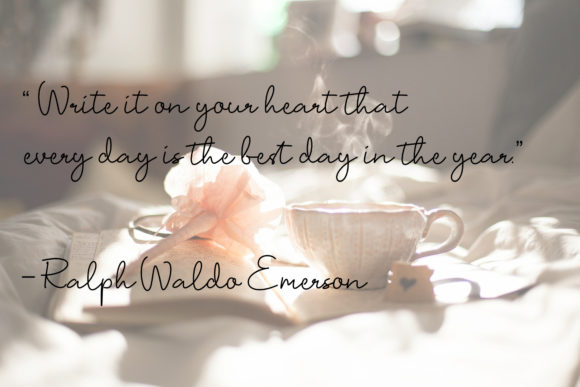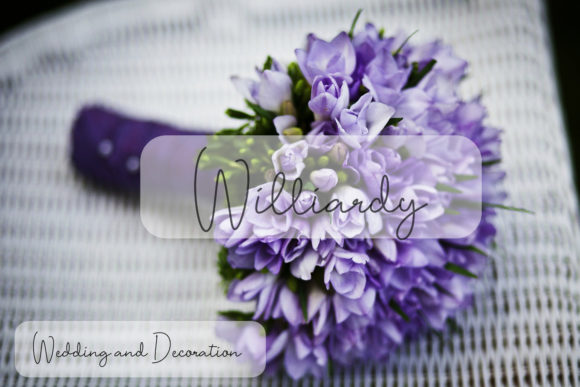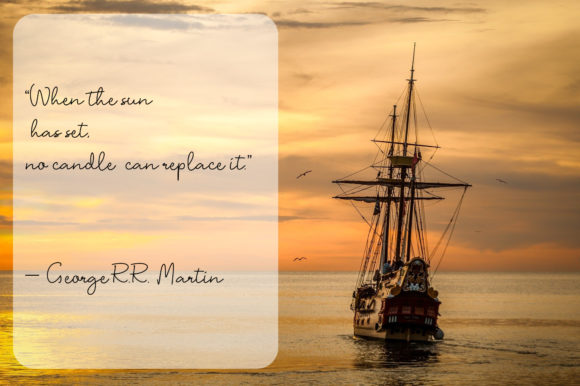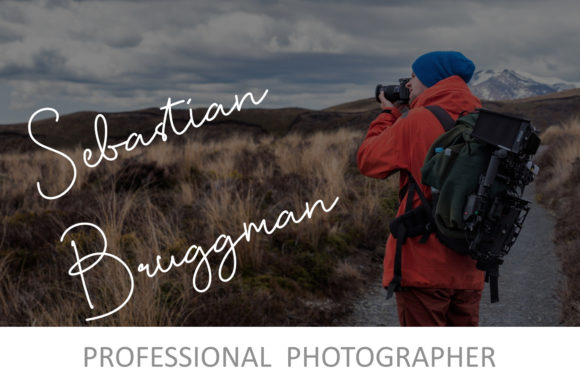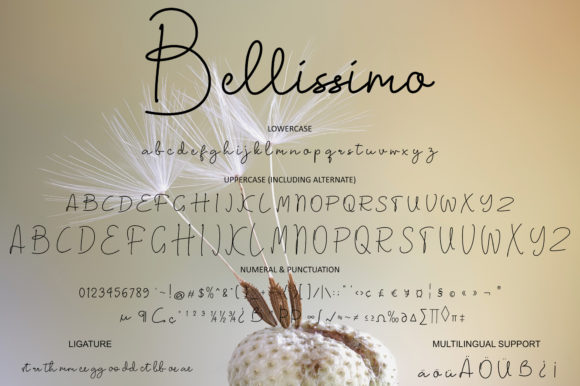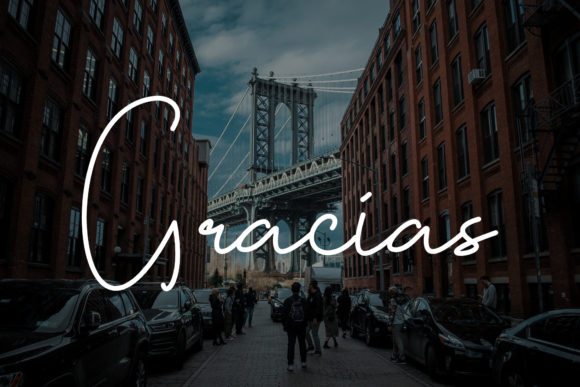
Bellissimo Font: Elevate Your Designs with Elegant Script
In the world of typography, few fonts capture the essence of elegance and sophistication as beautifully as Bellissimo. This stunning script font is inspired by timeless classic calligraphy, yet boasts a contemporary atmosphere that makes it perfect for modern designs. Whether you’re a designer, crafter, or simply someone who appreciates beautiful typography, Bellissimo is sure to impress.
The Story Behind Bellissimo
Bellissimo was designed with one goal in mind: to create a font that is both elegant and versatile. The creators of Bellissimo drew inspiration from traditional calligraphy, carefully balancing the strokes to achieve a harmonious blend of thick and thin lines. The result is a font that exudes refinement and poise, making it ideal for a wide range of applications.
What Makes Bellissimo Special?
So, what sets Bellissimo apart from other script fonts? Here are a few key features that make it truly special:
- Balanced and Varied: Bellissimo’s strokes are carefully crafted to achieve a perfect balance between thick and thin lines. This variation adds depth and visual interest to your designs.
- Not Too Thin, Not Too Thick: Unlike some script fonts that can be overly thin or heavy, Bellissimo strikes the perfect balance. This makes it highly legible and versatile.
- Elegant and Contemporary: Bellissimo’s classic inspiration is blended with a modern aesthetic, making it perfect for both traditional and contemporary designs.
Bellissimo is a font that can elevate a wide range of projects, from digital designs to craft projects. Here are some ways designers and crafters can use Bellissimo:
- Digital Designs: Use Bellissimo to add a touch of elegance to your digital designs, such as branding, packaging, and social media graphics.
- Crafting Projects: Add a personal touch to your crafting projects, such as handmade cards, invitations, and scrapbooking pages.
- Stationery and Paper Goods: Use Bellissimo to create beautiful stationery, journals, and paper goods that are sure to impress.
Tips for Using Bellissimo
To get the most out of Bellissimo, here are a few tips to keep in mind:
- Pair with Other Fonts: Bellissimo pairs beautifully with other fonts, such as sans-serif fonts for a modern contrast or serif fonts for a classic look.
- Experiment with Colors: Bellissimo looks stunning in a range of colors, from rich jewel tones to soft pastels.
- Play with Ligatures: Bellissimo features beautiful ligatures that can add an extra touch of elegance to your designs.
In conclusion, Bellissimo is a truly special font that can elevate your designs and add a touch of elegance to your projects. With its balanced and varied strokes, elegant and contemporary aesthetic, and versatility, Bellissimo is perfect for designers and crafters alike. Whether you’re looking to create digital designs, crafting projects, or stationery and paper goods, Bellissimo is sure to impress.